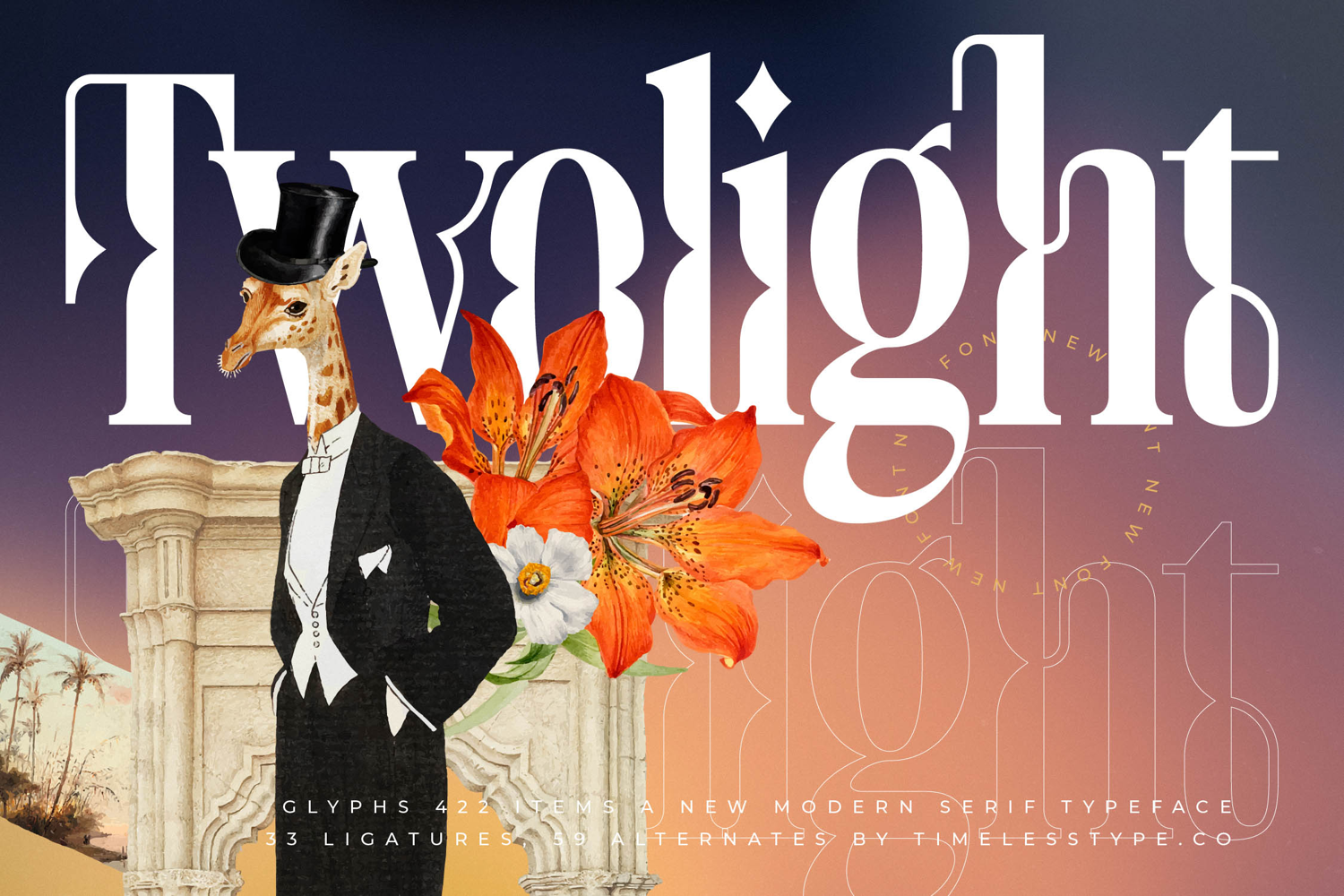
Twolight - New Modern Serif Typeface
The Twolight Typeface is a modern serif display font with an elegant, artistic style and strong contemporary character. Featuring 422 glyphs, 33 ligatures, and 59 stylistic alternates, this typeface gives designers the freedom to create typography that is unique, versatile, and refined. Its tall letterforms with sharp contrasts and decorative details bring a modern-classic atmosphere, making it ideal for projects with a luxurious, creative, and theatrical feel.
This font works beautifully in editorial design, including fashion magazines, book covers, art features, and creative layouts. The ligatures and alternates provide stylish variations, allowing typography to look dynamic and expressive.
In branding and packaging, Twolight is a perfect choice for premium fashion, cosmetics, perfumes, artisan beverages, and exclusive lifestyle brands. Its refined aesthetic creates a luxurious and memorable visual identity.
For entertainment and promotional design, this typeface is well-suited for movie posters, music album covers, art festival branding, and theater promotions. Its elegant and artistic character enhances visual storytelling with a dramatic flair.
In the field of digital design, Twolight performs exceptionally well across social media content, website branding, digital advertising, and motion graphics. With multilingual support, it adapts seamlessly to global projects that require consistent typography.
In short, Twolight Typeface is a modern serif display font designed to embody elegance, artistic flexibility, and contemporary theatrical charm. Perfect for editorial, branding, packaging, entertainment, advertising, and digital campaigns, this font elevates typography into a stylish, iconic, and timeless visual element.